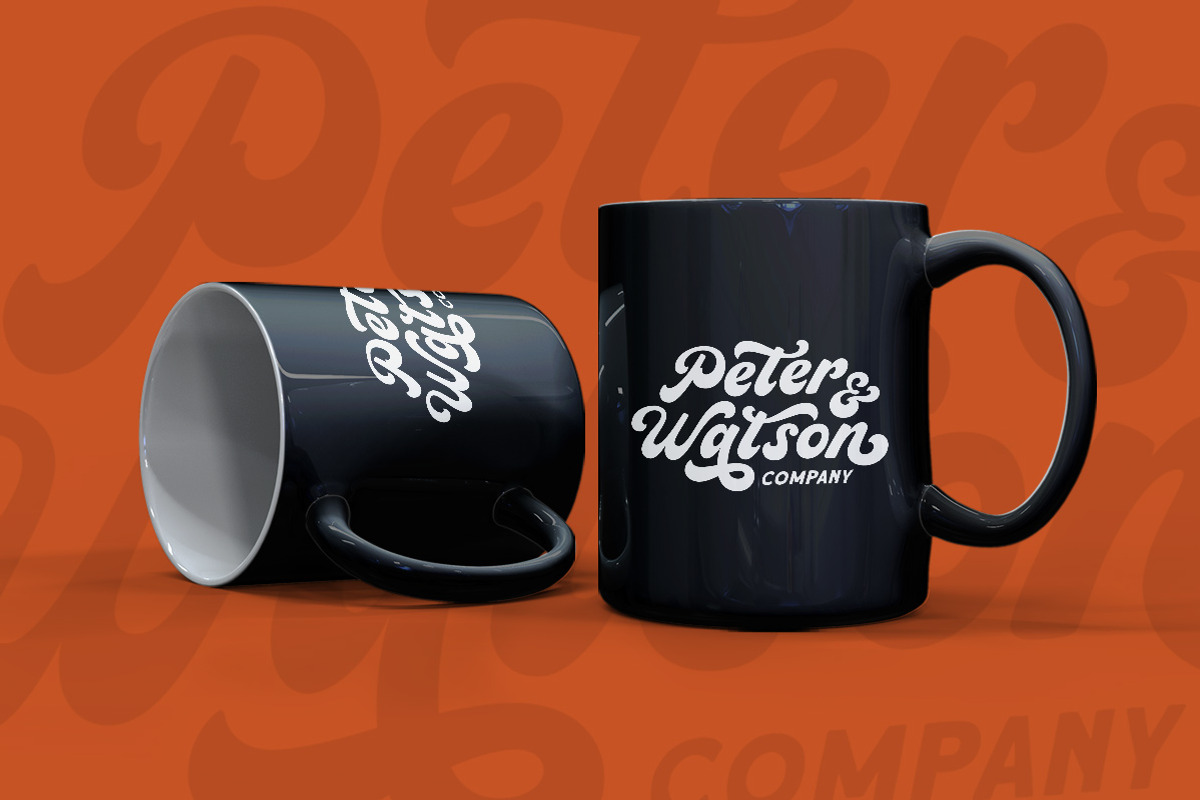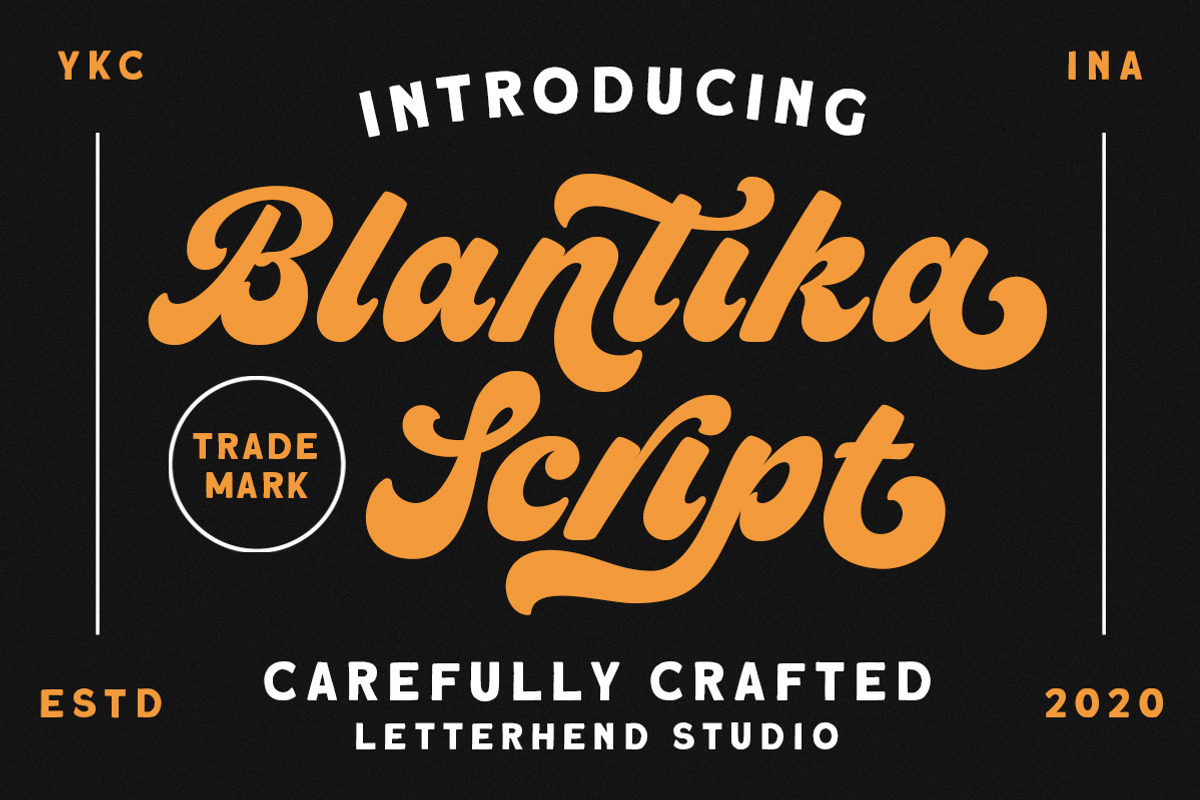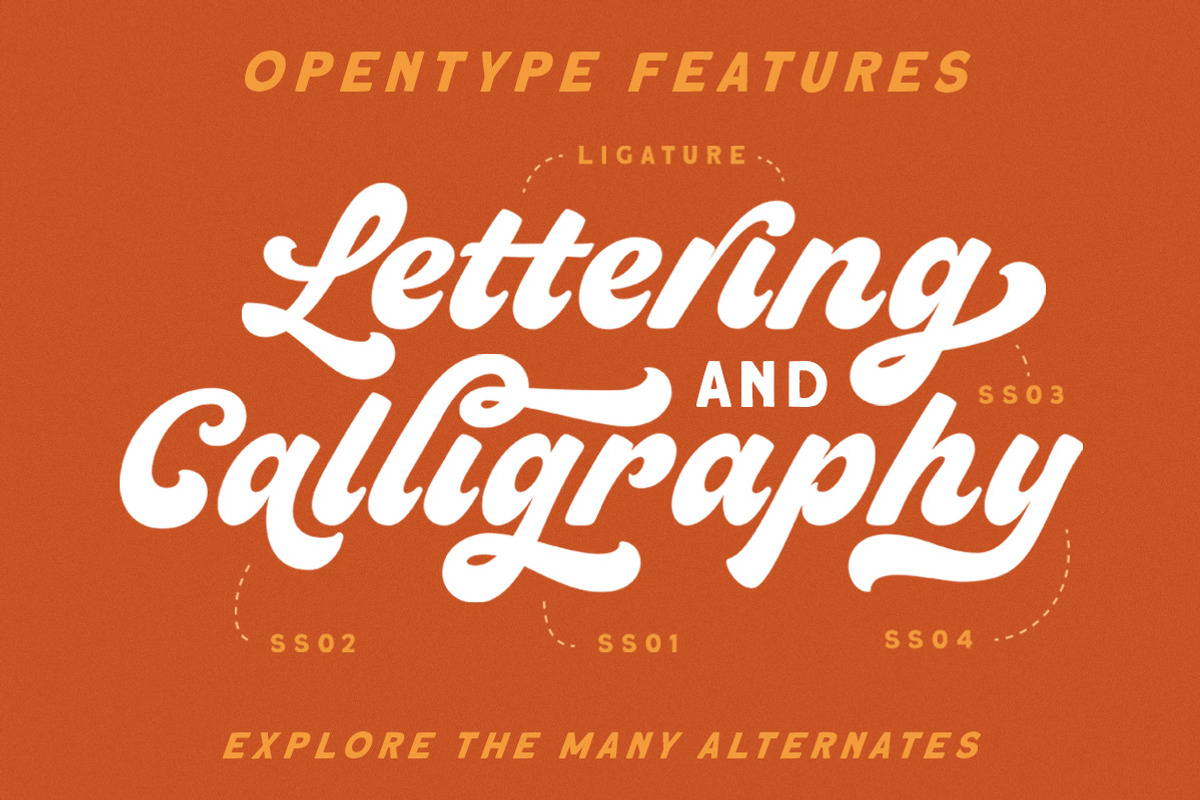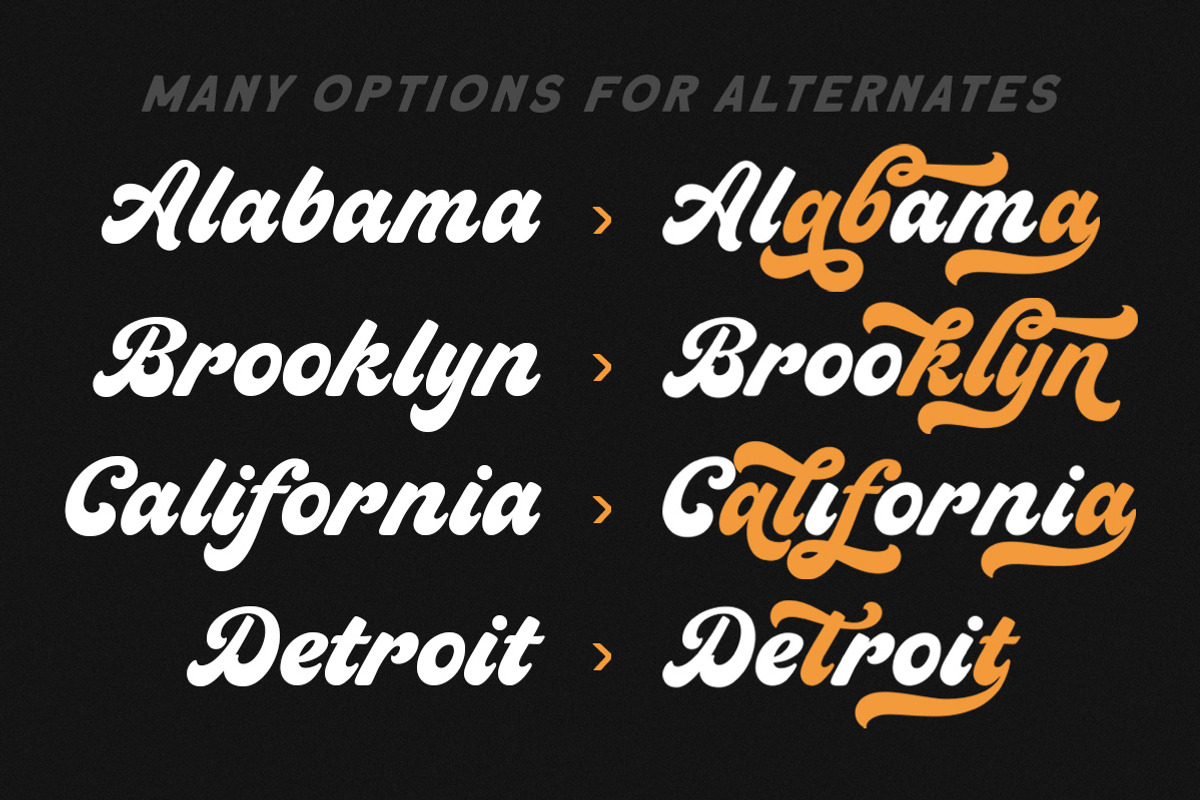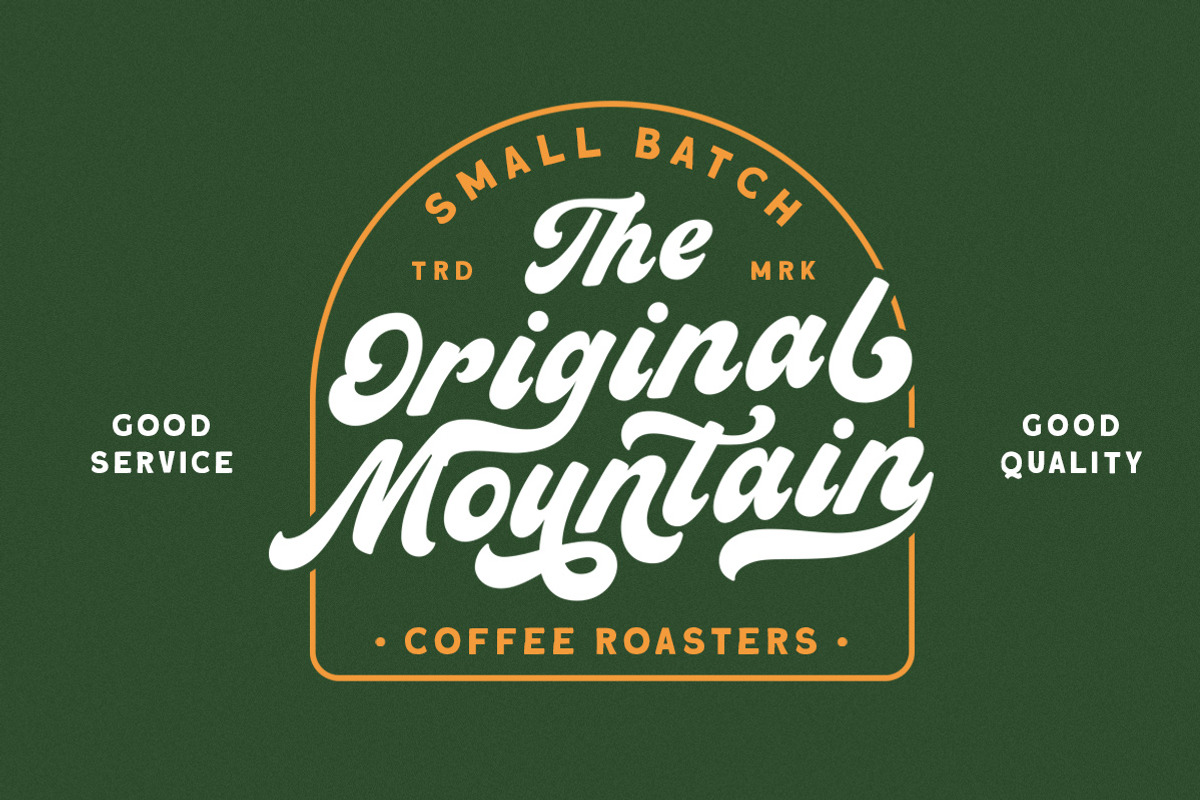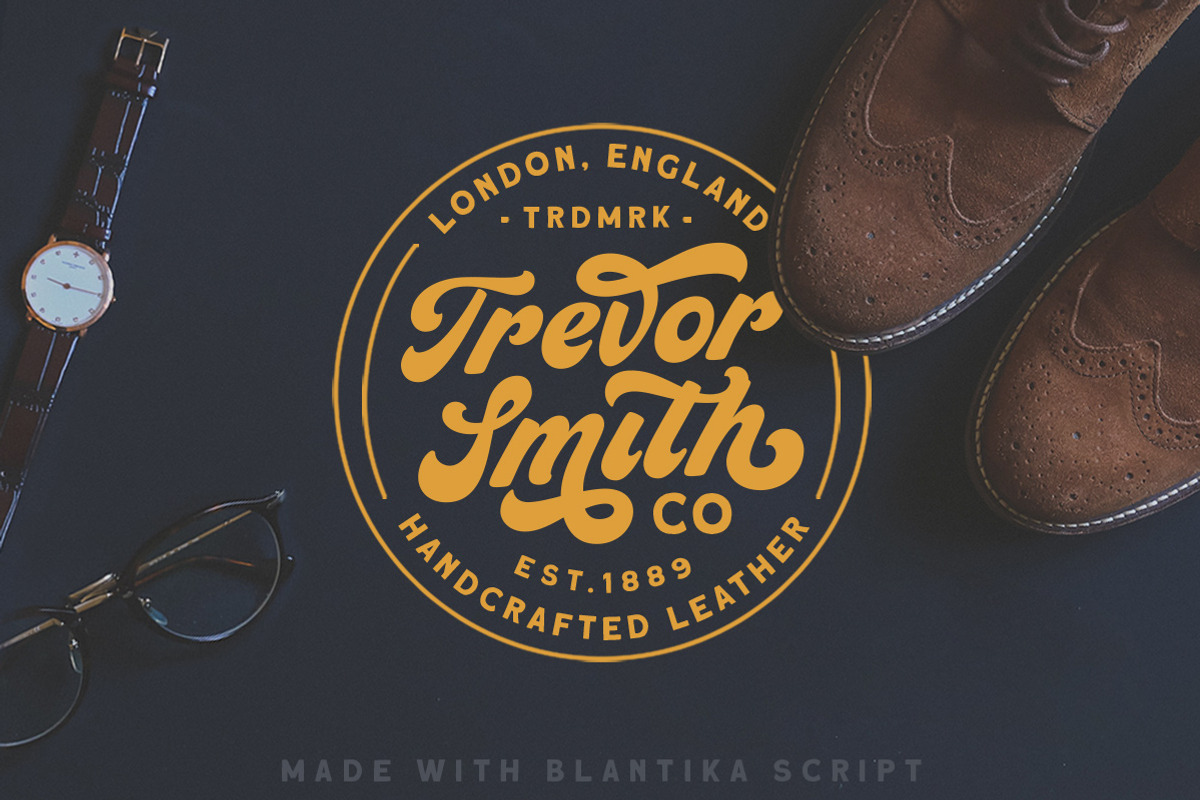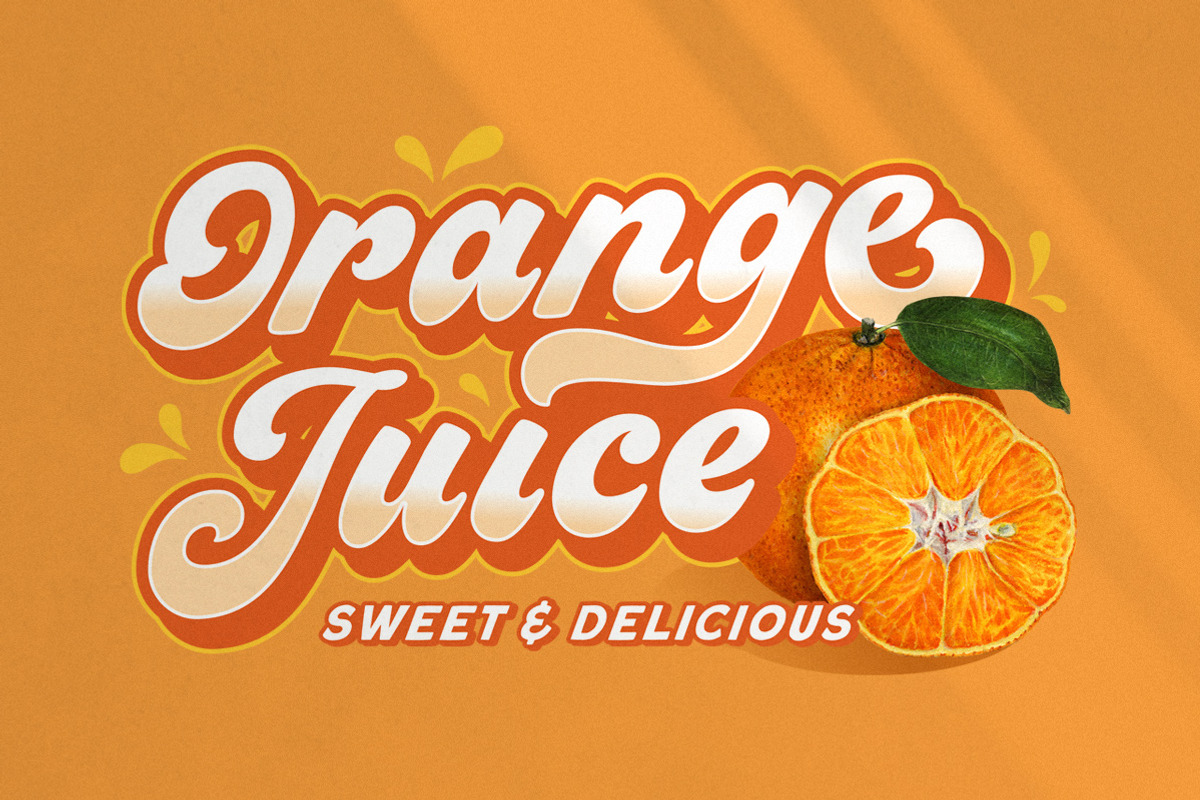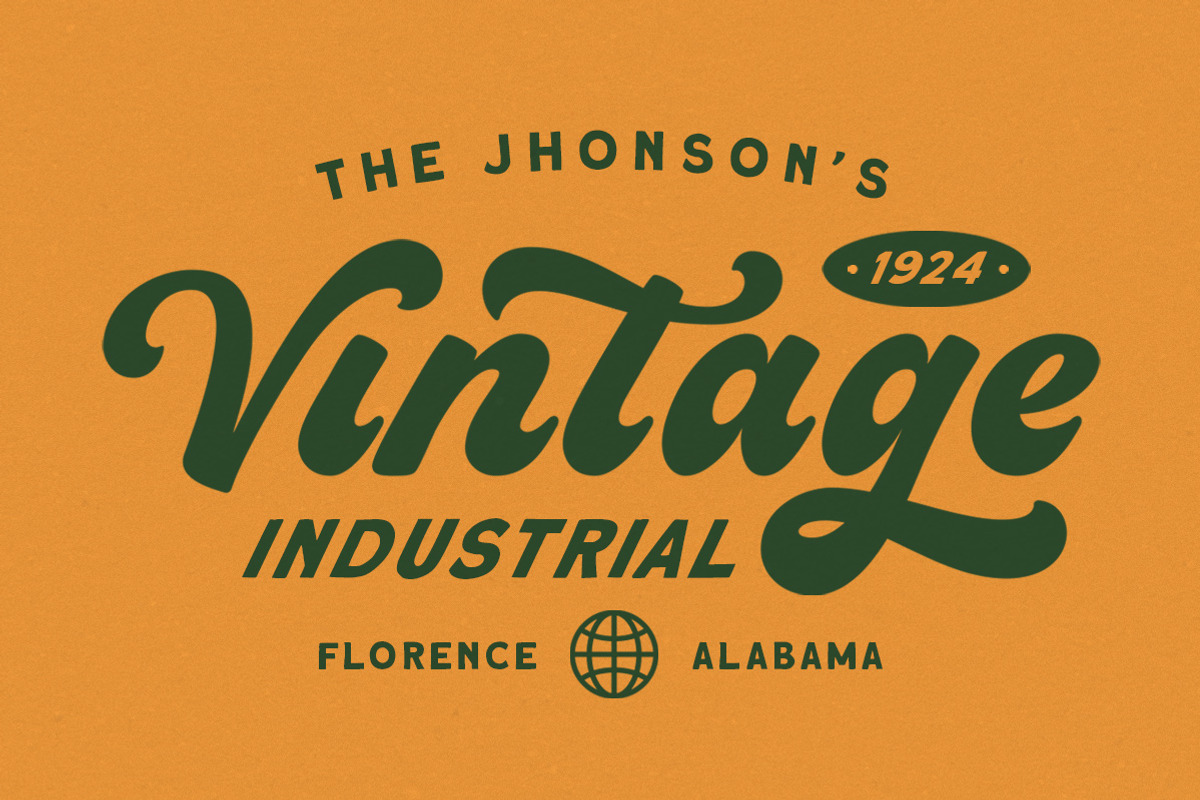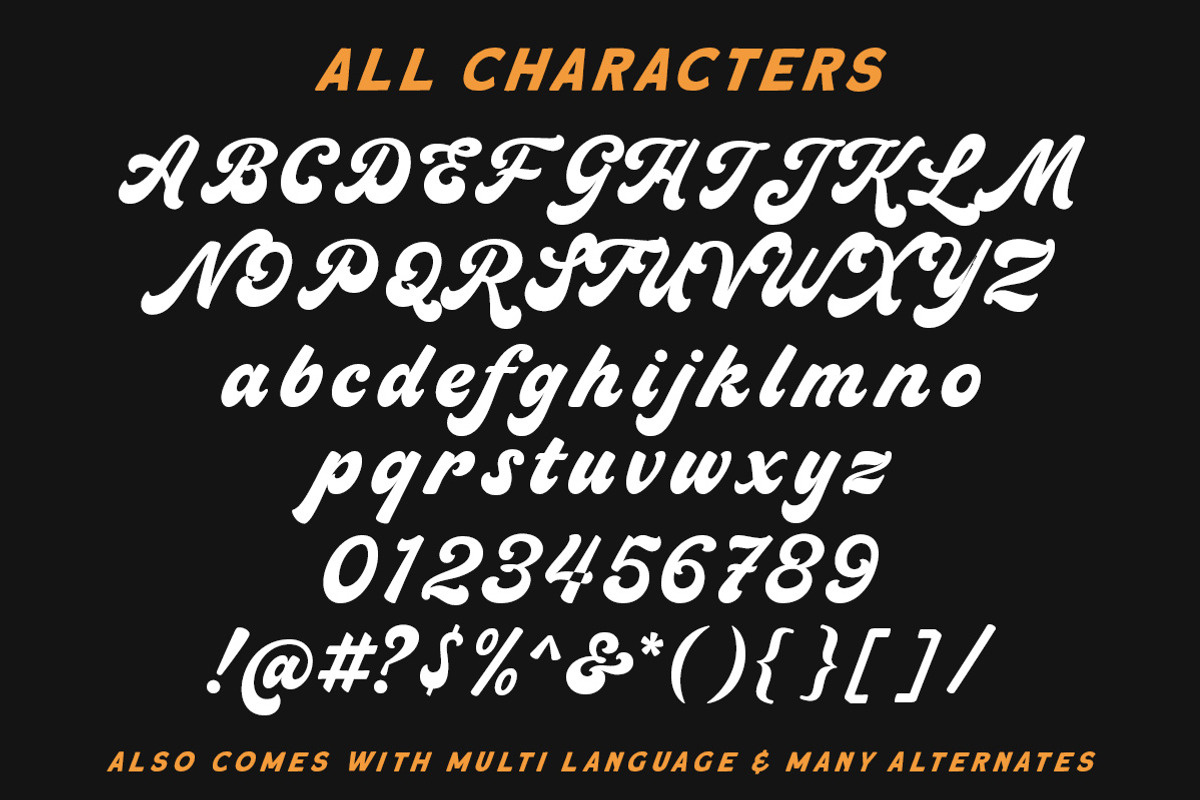
Blantika Script
Introducing, Blantika Script - a bold script which is purposely made for logotype. This type of font perfectly made to be applied especially in logo, and the other various formal forms such as invitations, labels, logos, magazines, books, greeting / wedding cards, packaging, fashion, make up, stationery, novels, labels or any type of advertising purpose.
- alternates and ligatures